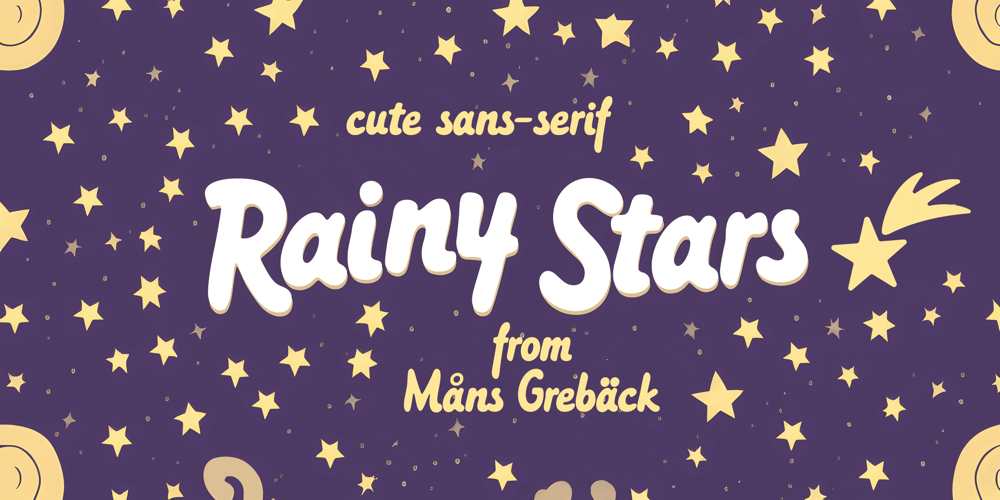
Rainy Stars
Rainy Stars font
Rainy Stars Font Family was designed by Måns Grebäck and published by Mans Greback. Rainy Stars contains 6 styles and family package options. Rainy Stars is an irresistibly adorable, naive sans-serif font that captures the magic of a child’s imagination. With its round, cute, and cartoon-like letterforms, this font adds a touch of whimsy and playfulness to your designs, perfect for projects aimed at children, nature, or rustic themes.The soft, bold strokes and charming personality of Rainy Stars make it a delightful choice for comic books, illustrations, and any creative work that aims to evoke the innocent joy of a toddler’s world.The Rainy Stars font family includes six delightful styles to suit various design needs:The weights Light, Regular and Bold for balancing and impact, as well as each thickness as Italic for a touch of movement. Use asterisk * to make a star. Use multiple asterisks to make different space symbols. Example: Magic**Planet(Download required)Built with advanced OpenType functionality, Rainy Stars ensures top-notch quality and provides you with full control and customizability. It includes stylistic and contextual alternates, ligatures, and other features to make your designs as unique and enchanting as the font itself.Rainy Stars offers extensive lingual support, covering all Latin-based languages, from Northern Europe to South Africa, from America to South-East Asia. It contains all the characters and symbols you’ll ever need, including all punctuation and numbers.